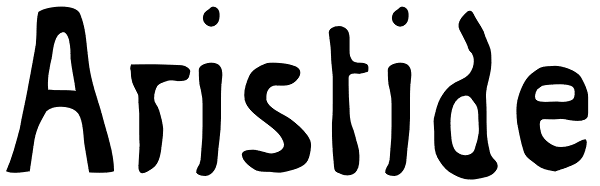
Aristide
There are many fonts inspired by Toulouse-Lautrec. I felt this one was one needed to be set formally and tried to get that loose brush-stroke appearance typical of Toulouse’s style of his famous French Caberet posters. Aristide Bruant a dancer and...